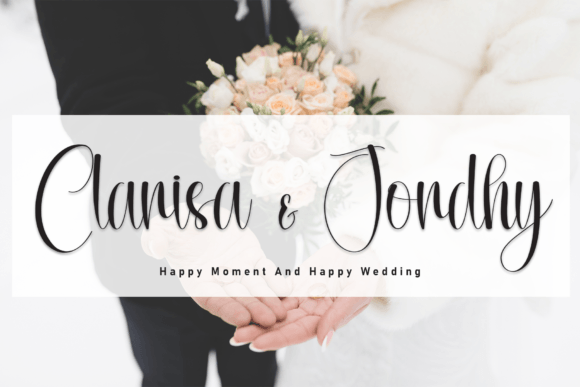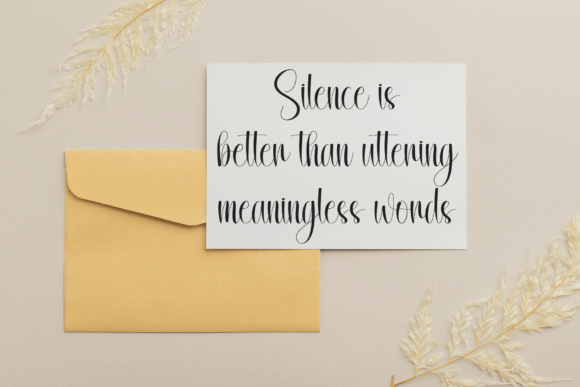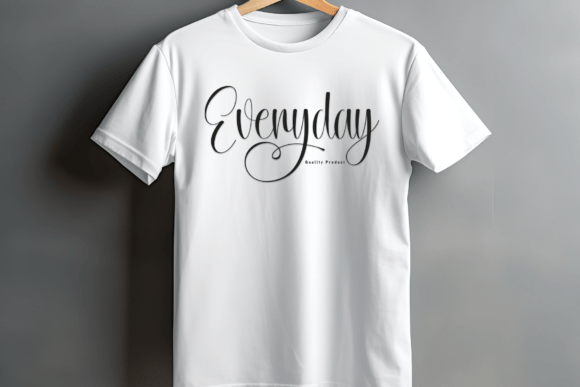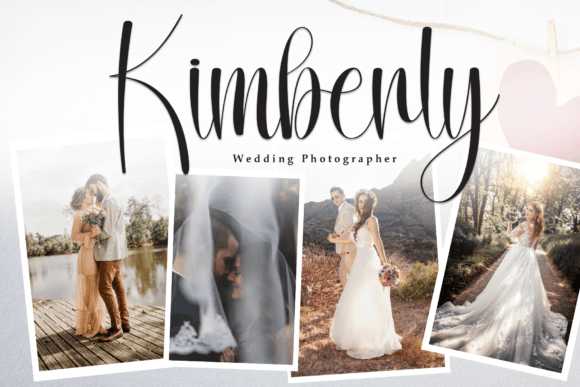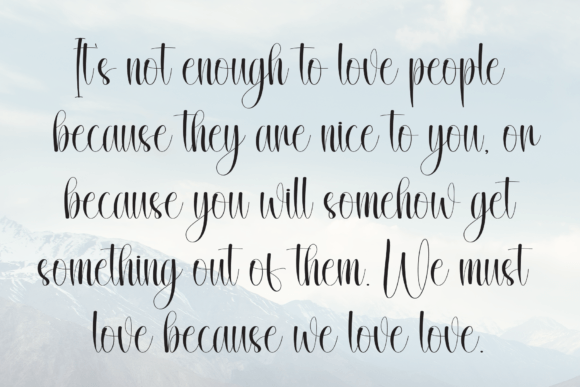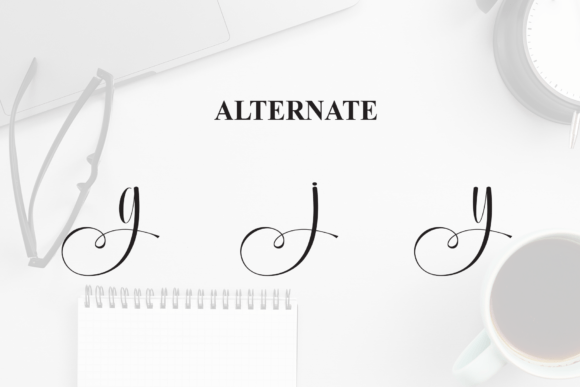
Dailyn Font: Elevate Your Designs with Elegance and Sophistication
In the world of typography, a font can make or break a design. For designers and crafters seeking to add a touch of elegance and sophistication to their work, Dailyn Font is an exceptional choice. This stylish and incredibly elegant script font is perfect for a variety of design projects, including wedding invitations, thank you cards, quotes, greeting cards, logos, business cards, and more.
The Characteristics of Dailyn Font
Dailyn Font boasts a beautiful, cursive script that exudes refinement and luxury. Its flowing lines and delicate strokes create a romantic and whimsical feel, making it ideal for designs that require a personal touch. The font’s classic and timeless look ensures that it will never go out of style, allowing your designs to remain relevant for years to come.
Uses of Dailyn Font
Dailyn Font’s versatility is one of its most significant advantages. Here are some of the many ways you can use this stunning font:
- Wedding Invitations: Add a touch of romance and sophistication to your wedding invitations with Dailyn Font. Its elegant script is perfect for formal and informal wedding designs.
- Thank You Cards: Express your gratitude in style with Dailyn Font. This font is ideal for creating beautiful and heartfelt thank you cards for special occasions.
- Quotes: Make your quotes stand out with Dailyn Font’s elegant and cursive script. This font is perfect for creating inspirational and motivational quotes for social media, posters, and more.
- Greeting Cards: Create stunning greeting cards for birthdays, holidays, and other special occasions with Dailyn Font. Its classic look ensures that your cards will be treasured for years to come.
- Logos: Use Dailyn Font to create a unique and memorable logo for your business or brand. Its elegant script can help you establish a professional and sophisticated image.
- Business Cards: Elevate your business cards with Dailyn Font’s stylish and elegant script. This font is perfect for creating a lasting impression on potential clients and partners.
Why Choose Dailyn Font?
With so many fonts available, why choose Dailyn Font? Here are a few reasons why designers and crafters love this elegant script font:
- Unique and Distinctive: Dailyn Font’s unique and distinctive script sets it apart from other fonts. Its elegant look ensures that your designs will stand out from the crowd.
- Easy to Read: Despite its elegant and cursive script, Dailyn Font is easy to read, making it perfect for designs that require a personal touch.
- Versatile: Dailyn Font’s versatility is one of its most significant advantages. You can use it for a wide range of design projects, from wedding invitations to logos and business cards.
- Timeless: Dailyn Font’s classic and timeless look ensures that it will never go out of style. Your designs will remain relevant and elegant for years to come.
Tips for Using Dailyn Font
To get the most out of Dailyn Font, here are a few tips to keep in mind:
- Use it Sparingly: While Dailyn Font is elegant and sophisticated, it’s essential to use it sparingly. Too much of a good thing can be overwhelming, so use it to highlight key elements in your design.
- Pair it with Other Fonts: Dailyn Font pairs well with other fonts, such as sans-serif fonts. Experiment with different font combinations to create a unique and visually appealing design.
- Experiment with Colors: Dailyn Font looks stunning in a variety of colors. Experiment with different colors and shades to find the perfect combination for your design.
Dailyn Font is an exceptional choice for designers and crafters seeking to add a touch of elegance and sophistication to their work. Its stylish and incredibly elegant script font is perfect for a variety of design projects, from wedding invitations to logos and business cards. With its unique and distinctive script, ease of readability, versatility, and timeless look, Dailyn Font is sure to elevate your designs to the next level.